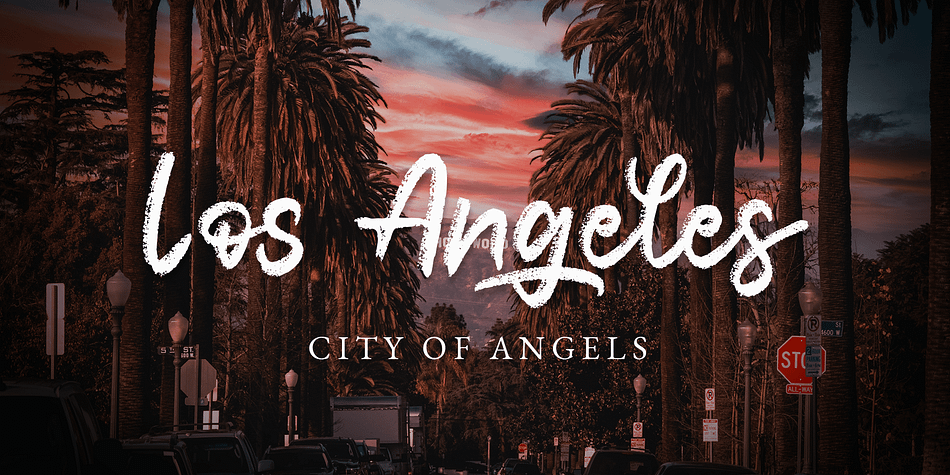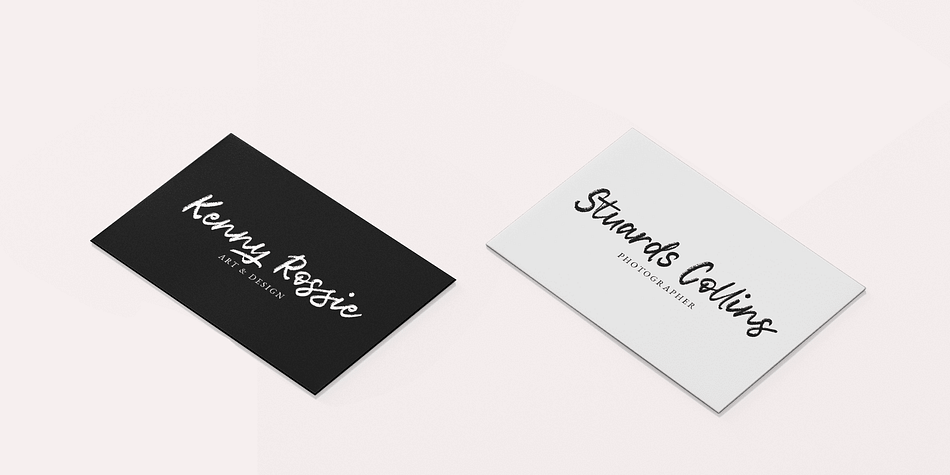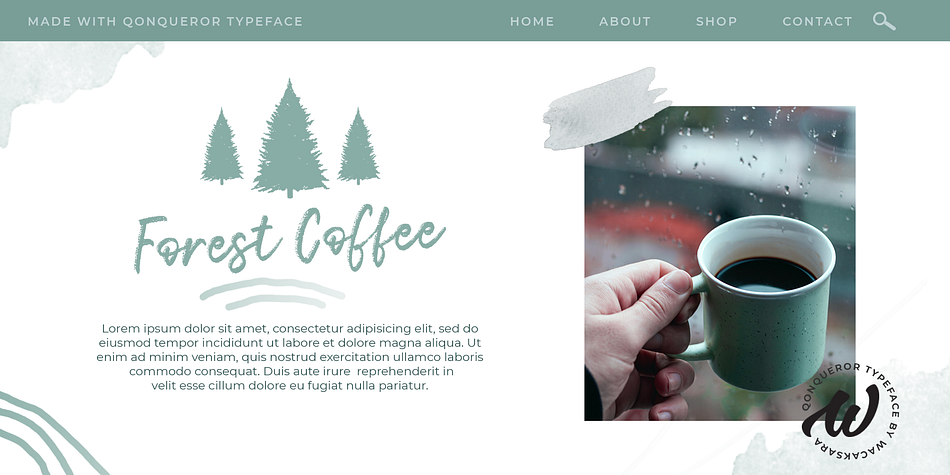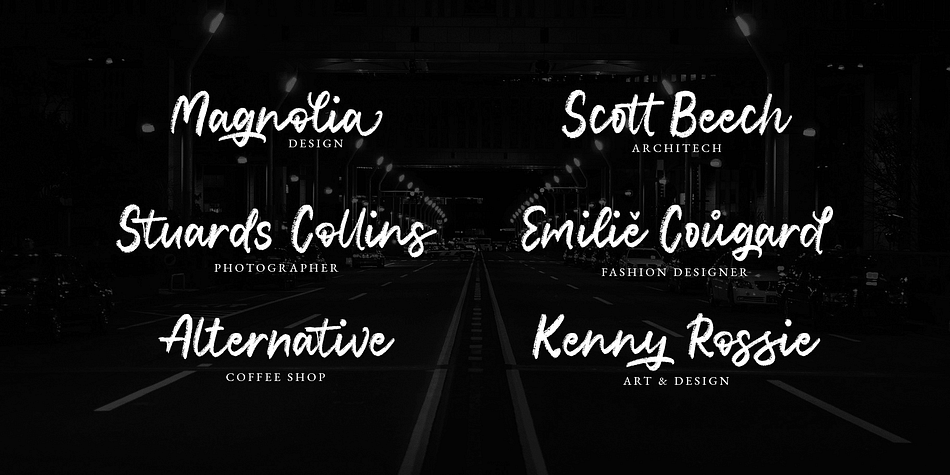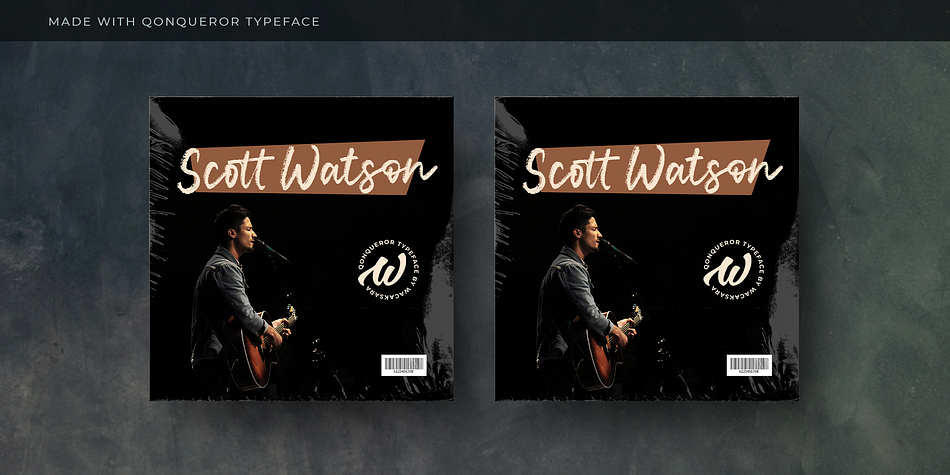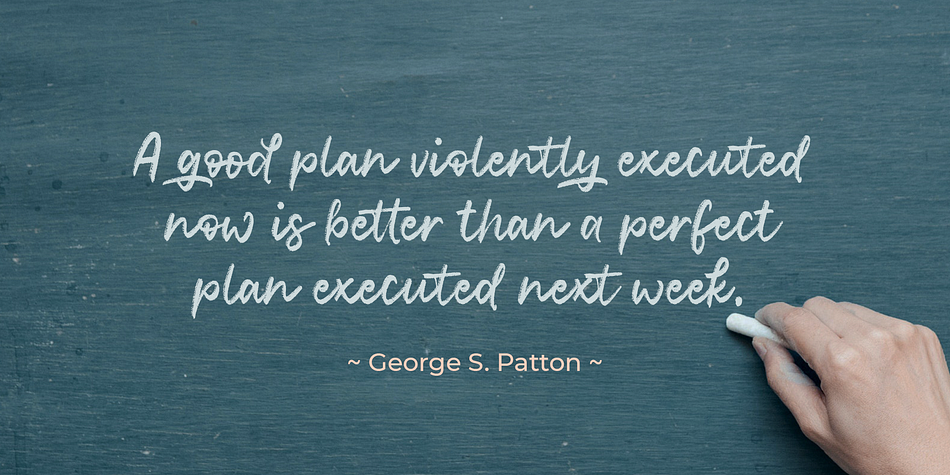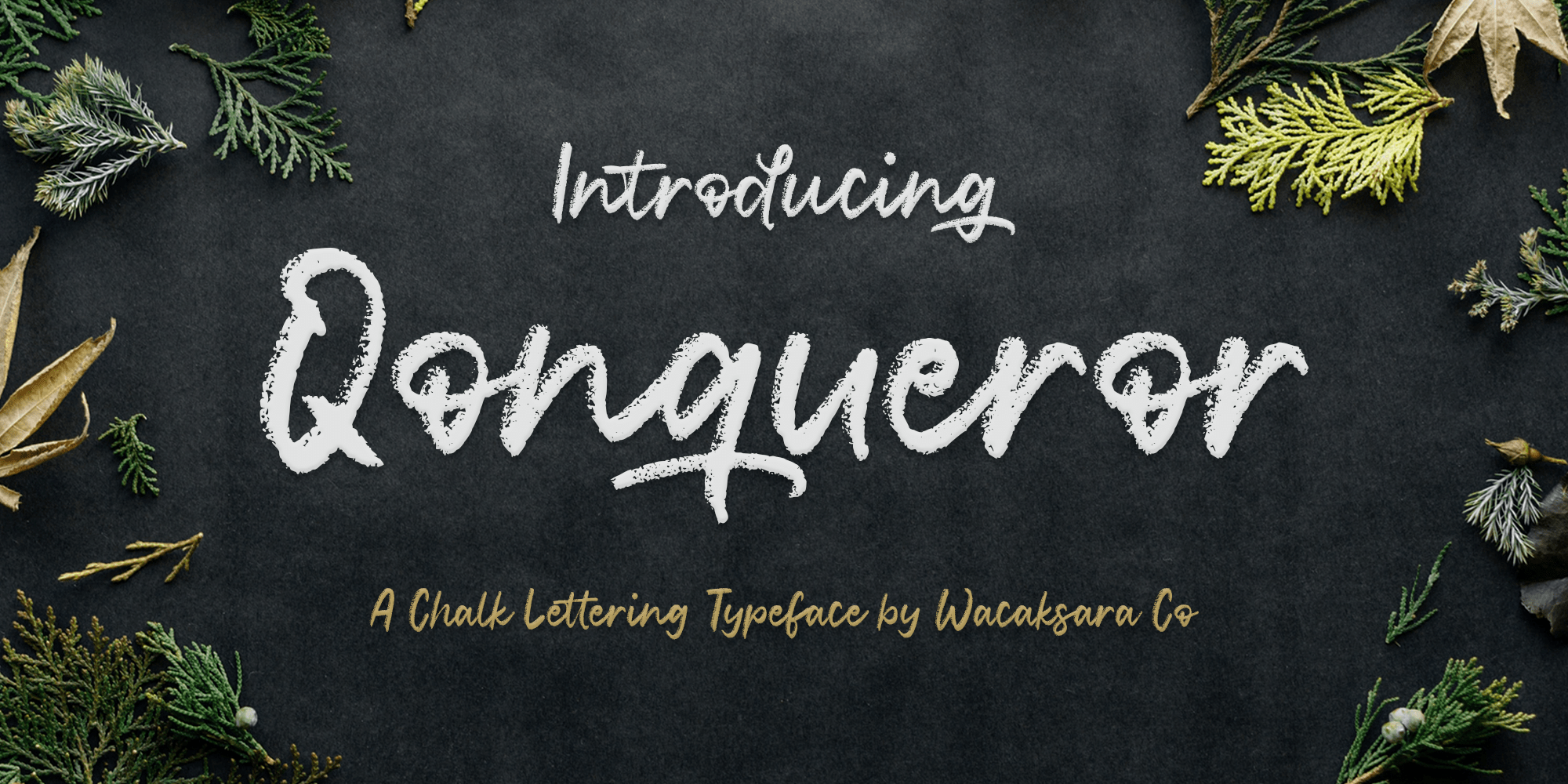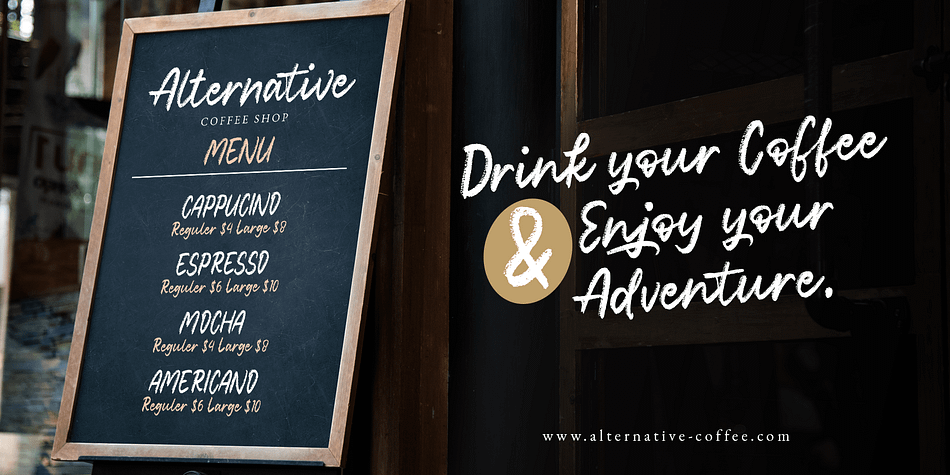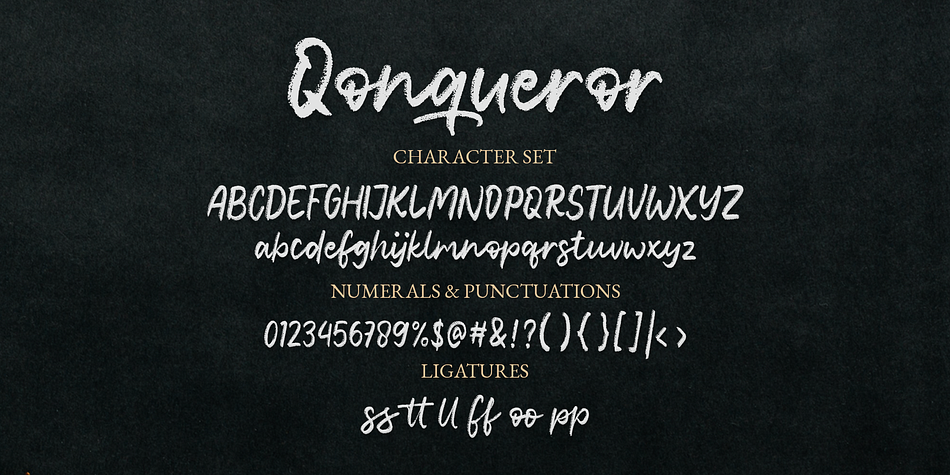
Designed by Hamam Jauhari, Qonqueror is a hand drawn and script font family published by Wacaksara Co.
Qonqueror Typeface is a font inspired by writing on a blackboard. This font is very cool and can be mixed and matched with any ornament you like. this font is great for your next creative project such as blackboard menu design, book menus, sign boards, logos, printed quotes, invitations, cards, product packaging, headers, Logotype, Letterhead, Poster, Apparel Design, Label, and etc.
Qonqueror Typeface comes with uppercase, lowercase, numerals, punctuations and so many variations on each characters include opentype alternates, and also ligatures to let you customise your designs.